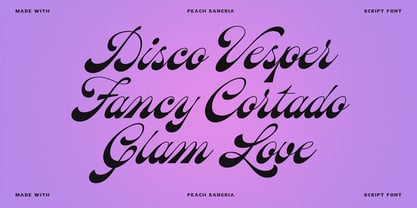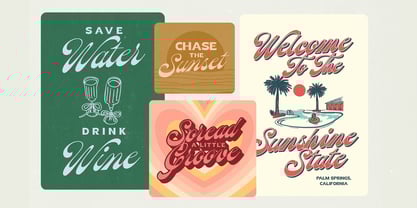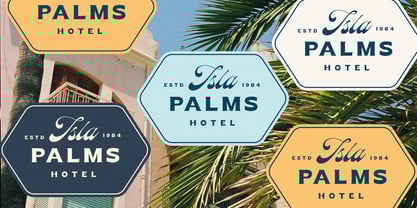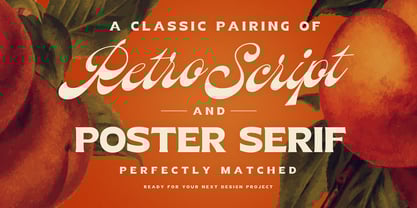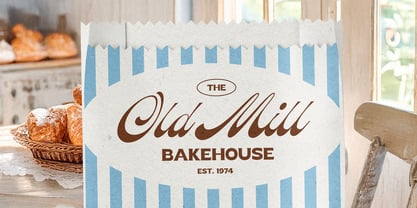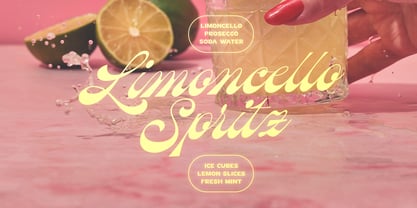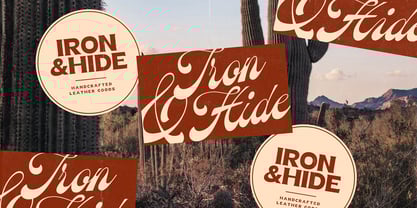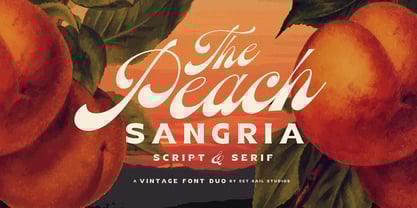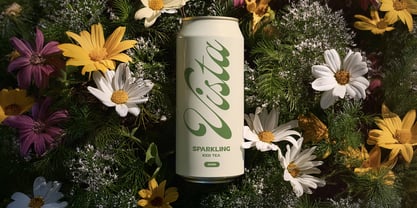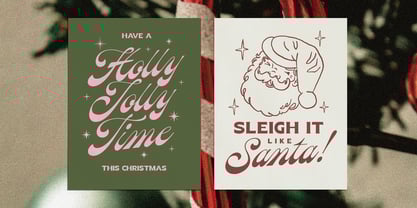
Peach Sangria
by Set Sail Studios
The Peach Sangria Font Family was designed by Sam Parrett and published by Set Sail Studios. Peach Sangria contains 2 styles and family package options. More about this family
Introducing the Peach Sangria Script and Serif font duo! 🍑🍹 The star of this retro-inspired set is an elegant, flowing bottom-heavy script – a timeless classic which adds a shine to a range of design projects from vintage logos to fancy display text. You also won’t need to look any further for a complimentary font because a chunky poster-ready Serif font is also included – a perfect match to the script font whether you’re looking for a strong side-by-side partner or smaller sub-text, the two fonts will work in harmony in a variety of combinations. Included in this font set; Peach Sangria Script • A classic vintage bottom-heavy connecting script font, including a full set of uppercase, lowercase, numerals and punctuation characters. 7 lowercase alternate characters without beginning forms are available by turning on ‘Stylistic Alternates’ or via a Glyphs panel. Peach Sangria Serif • A chunky poster-inspired serif font design to compliment the Script version. Contains uppercase-only characters, as well as numerals and punctuation. Language Support All fonts support English, French, Italian, Spanish, Portuguese, German, Swedish, Norwegian, Danish, Dutch, Finnish, Indonesian, Malay, Hungarian, Polish, Croatian, Turkish, Romanian, Czech, Latvian, Lithuanian, Slovak, Slovenian.